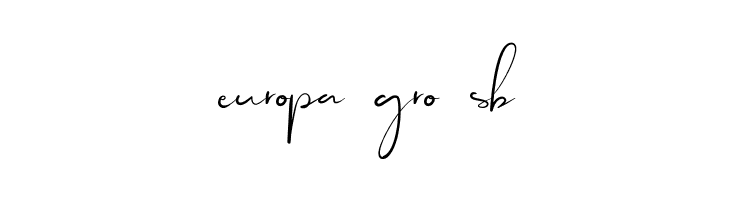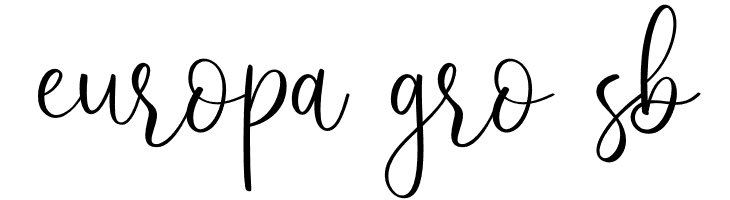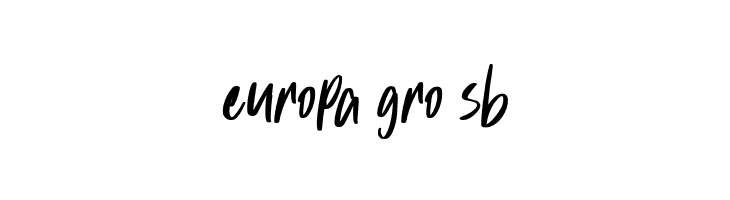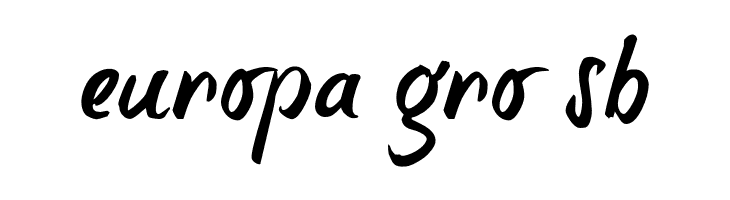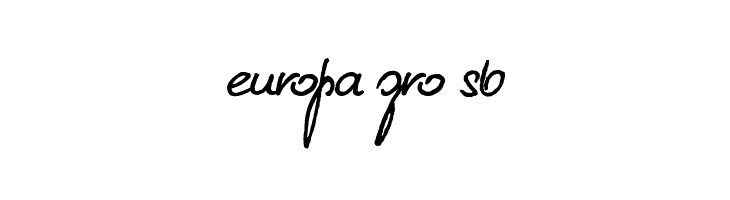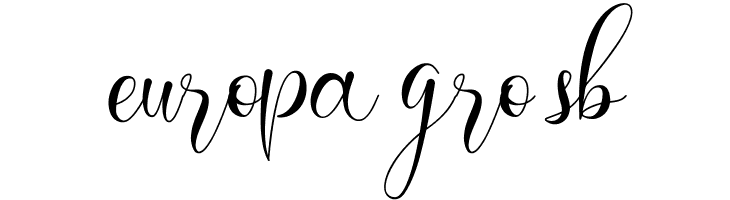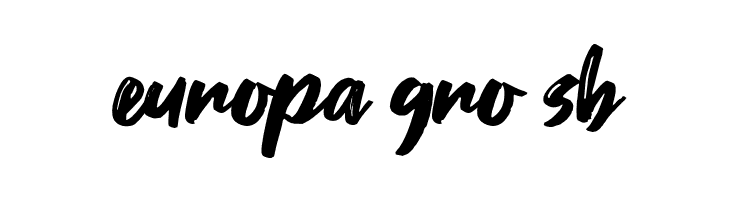
A dynamic, expressive handwritten font with fluid, interconnected strokes.
A modern, cursive script font with elegant, flowing characters.
An elegant, flowing script font with a handwritten appearance.
A dynamic, expressive handwritten font with fluid strokes and a playful style.
A flowing, cursive font with elegant loops and a handwritten style.
A dynamic brush script font with fluid, natural strokes and a casual, artistic style.
A dynamic handwritten font with fluid, expressive strokes and a casual style.
A whimsical and elegant script font with flowing loops and swirls.
An elegant script font with flowing loops and decorative flourishes.
A bold, expressive brush-style font with dynamic strokes.